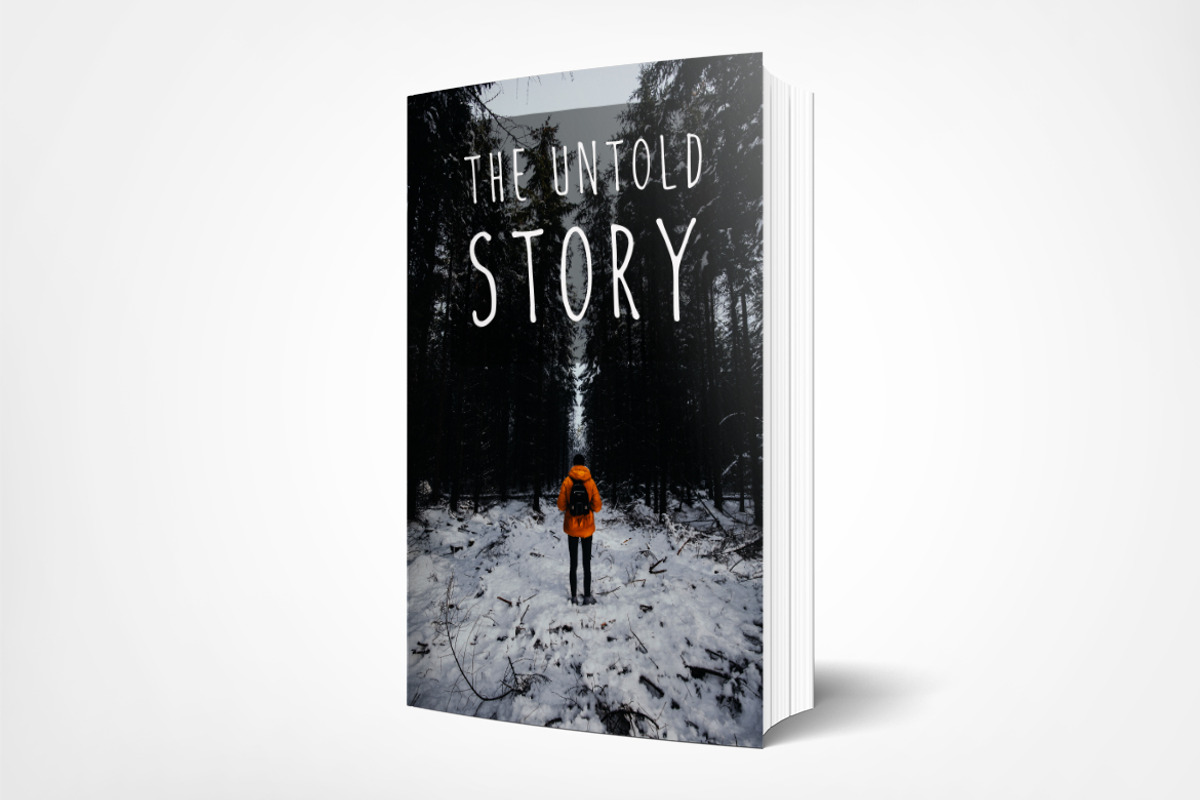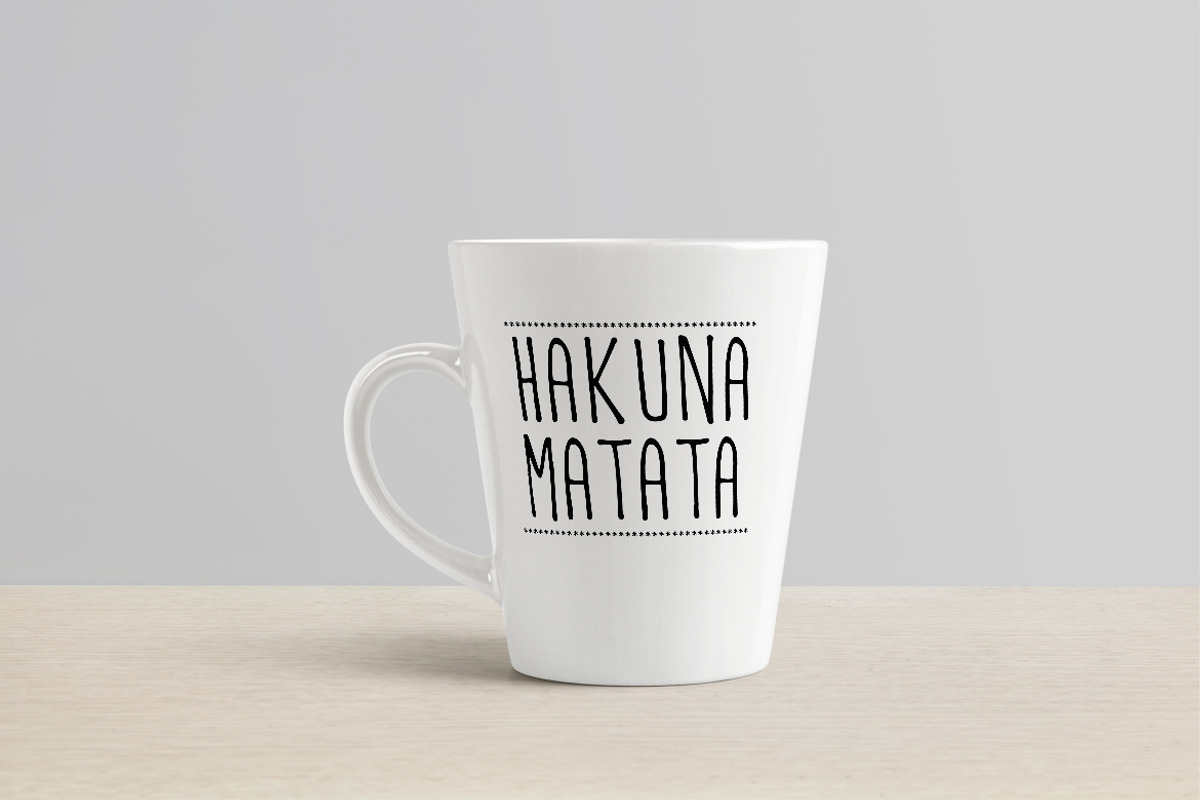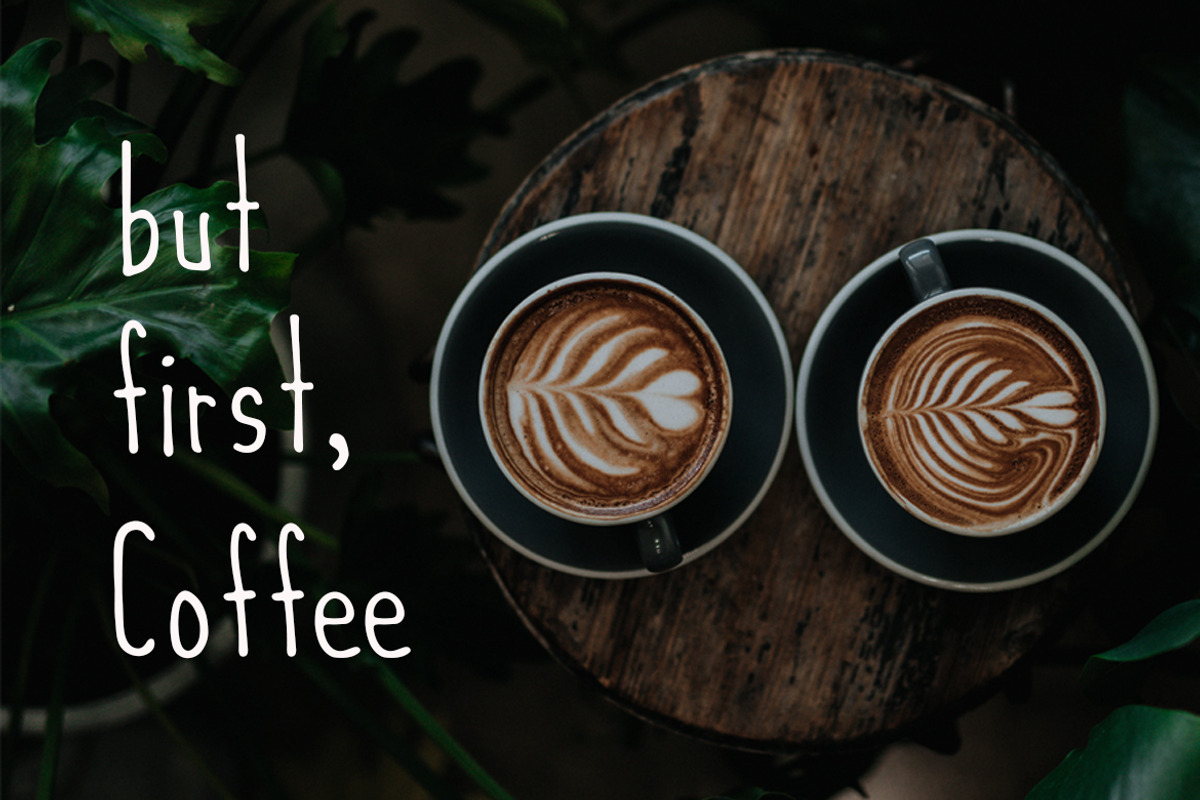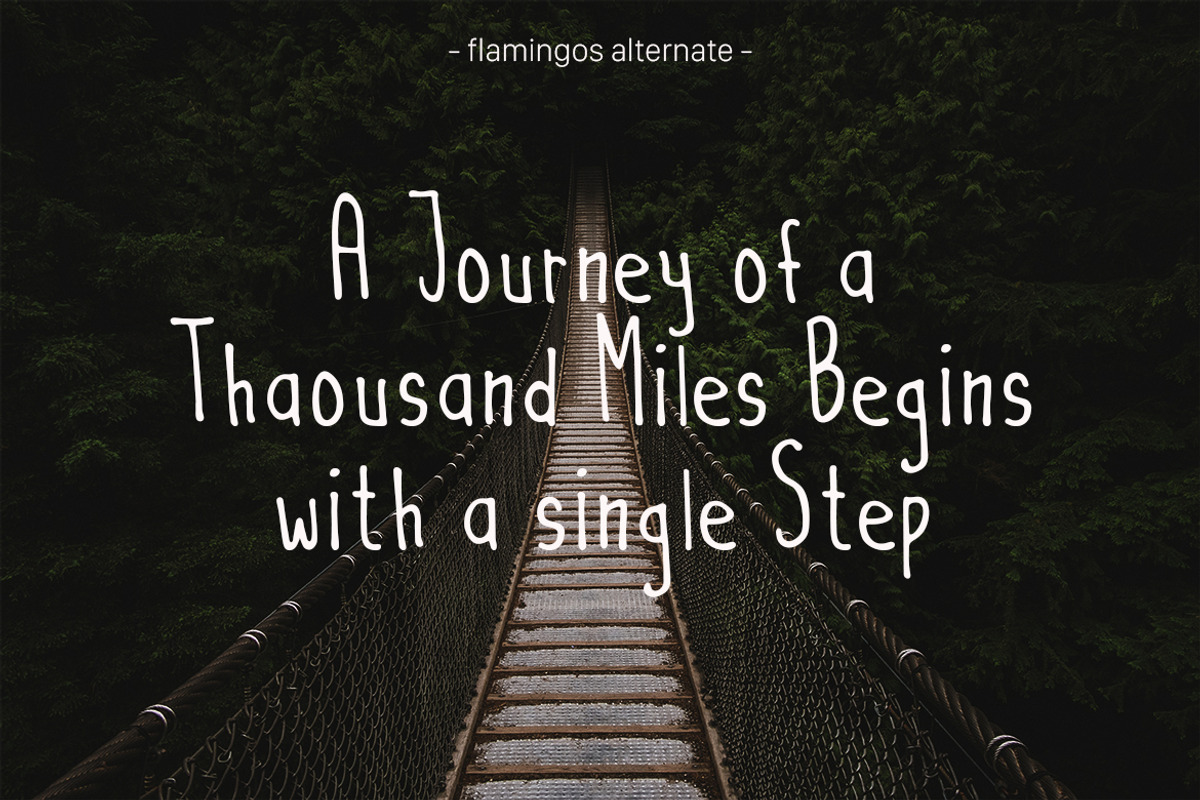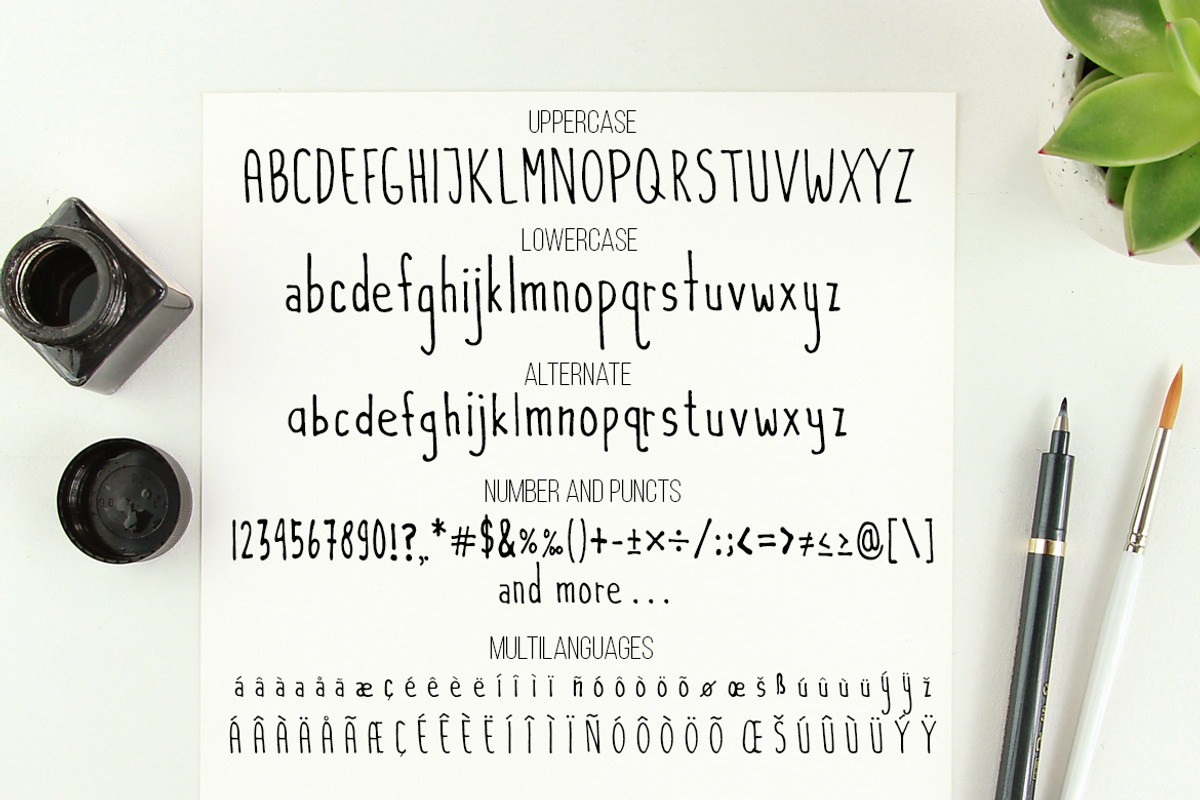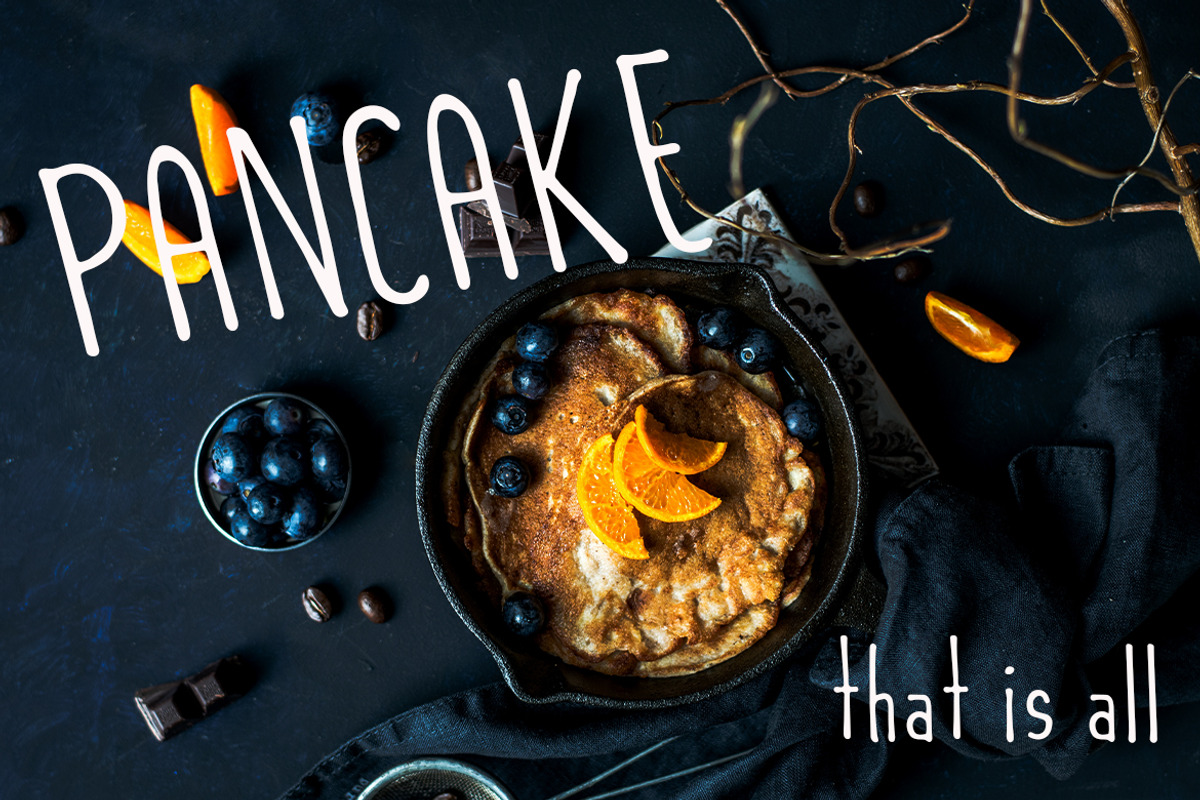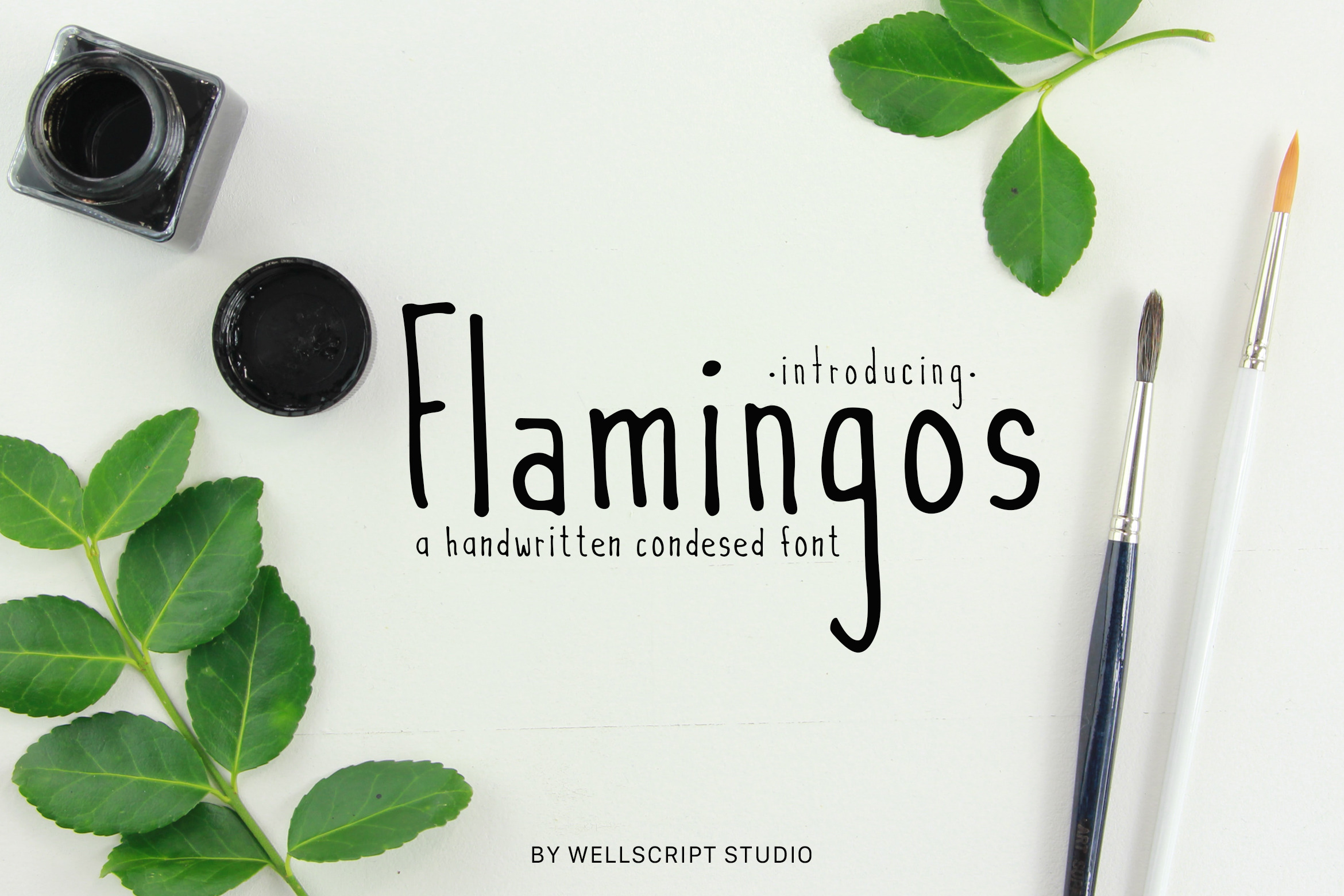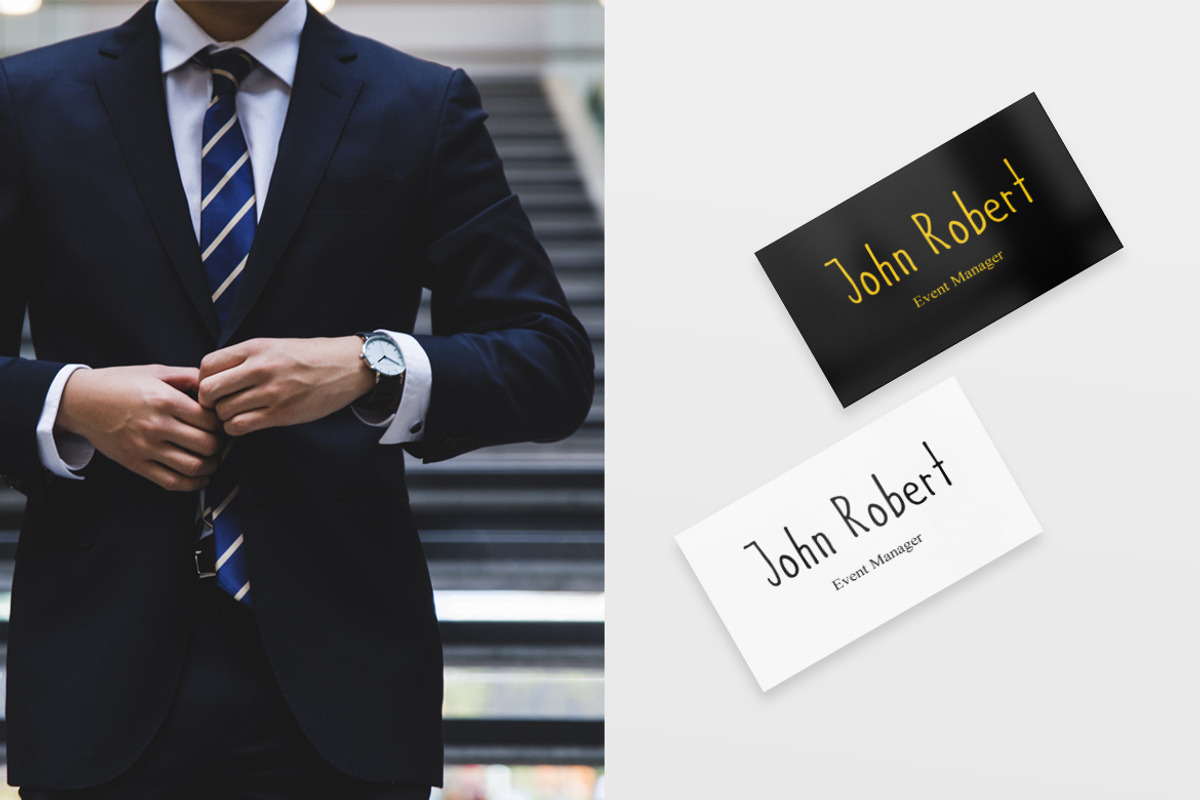
Flamingos - A Condesed Font
Flamingos is skinny and a clean handwritten condensed sans-serif. This condensed sans-serif will look so fun on your cards & invites, cover book and it works perfectly when pairing with other fonts.
Flamingos is perfect for branding project, logo, wedding design, social media posts, advertisements, product packaging, product design, label, photography, watermark, book cover and any projects that need handwriting taste.
- Features :Alternate, Number, Punchtuation, Multilingual Support